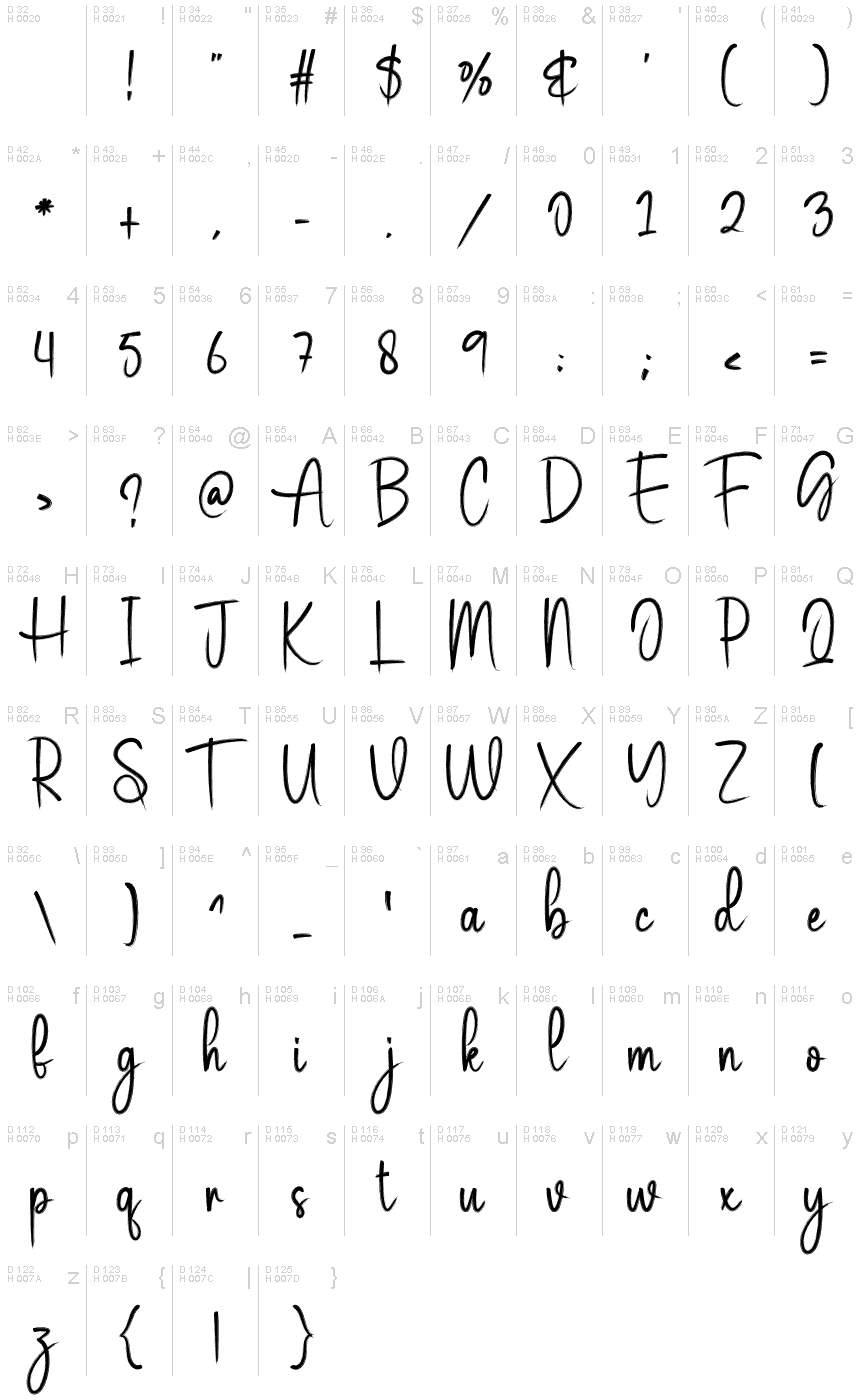
December
December, designed by Scratchones, embodies an artful brush style that brings a touch of elegance and personality to any design. With its semi-light weight, December strikes a fine balance between subtlety and impact, making it an excellent choice for projects that require both readability and flair. The font's flowing lines and organic texture suggest a handcrafted quality that resonates with authenticity.
Perfect for invitations, branding, advertising, and more, December is versatile enough to enhance the aesthetic of various creative endeavors. Its stylish brush strokes offer a sense of individuality without compromising on clarity, ensuring your message stands out with sophistication. Embrace the charm of December in your next project and let its distinct character leave a lasting impression.